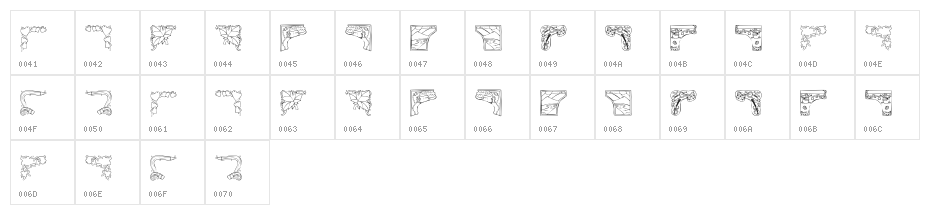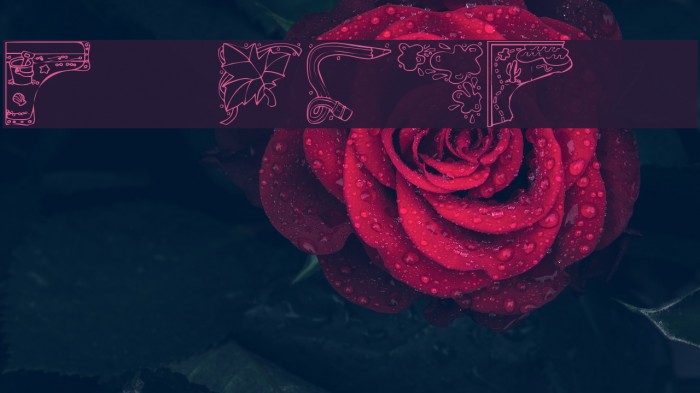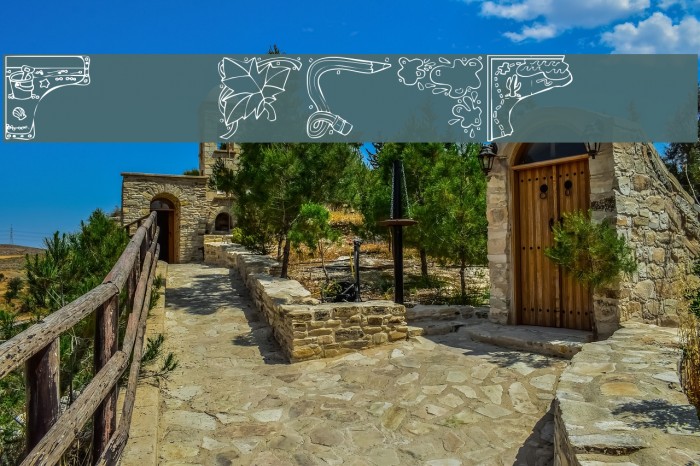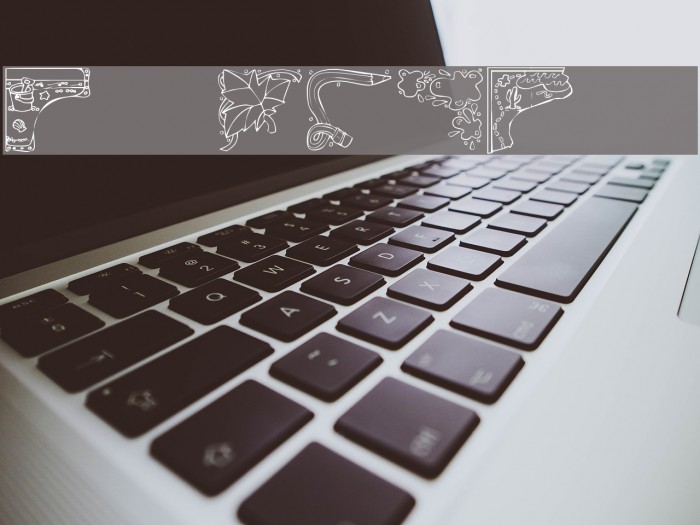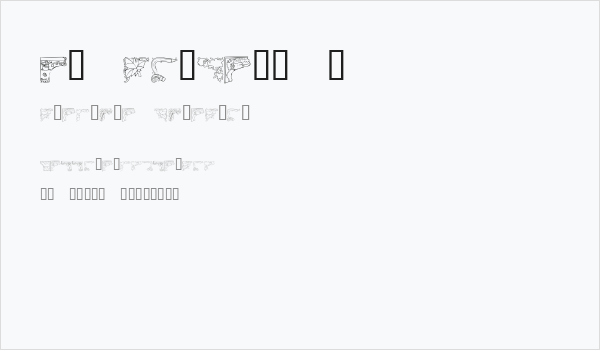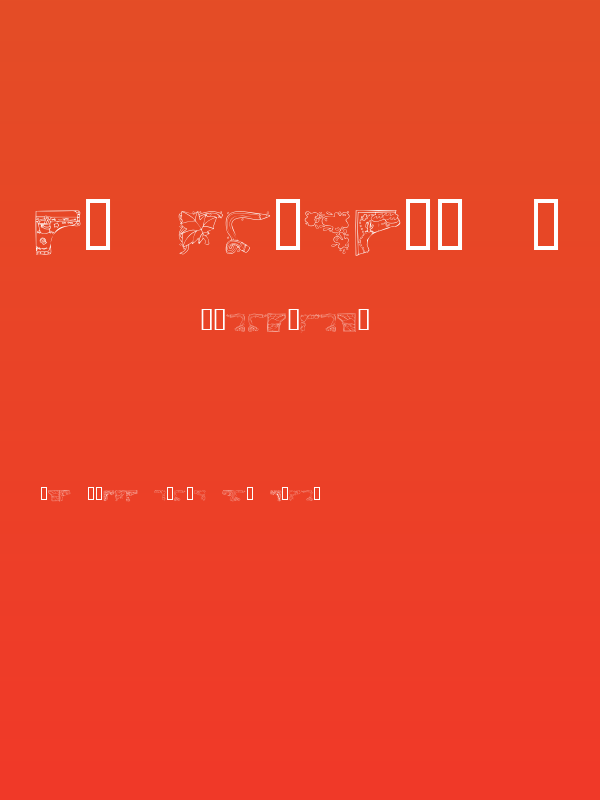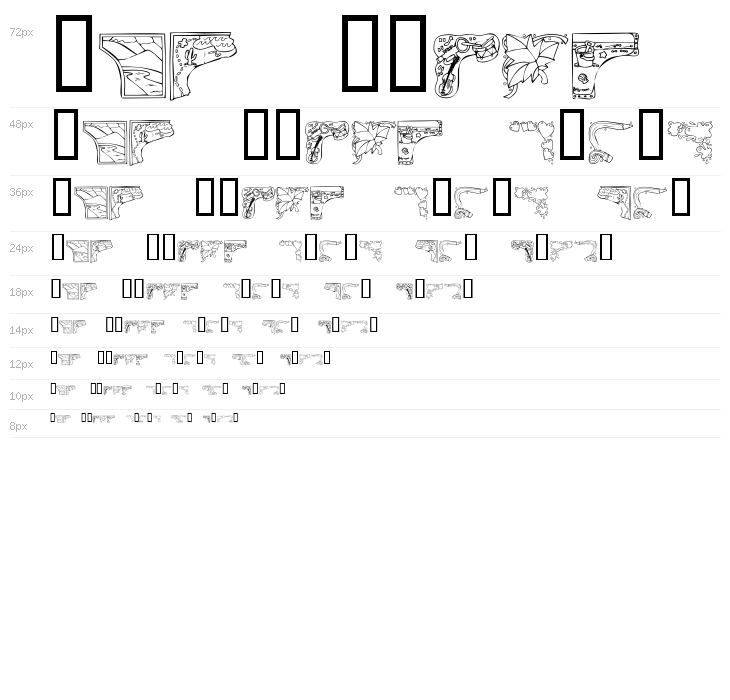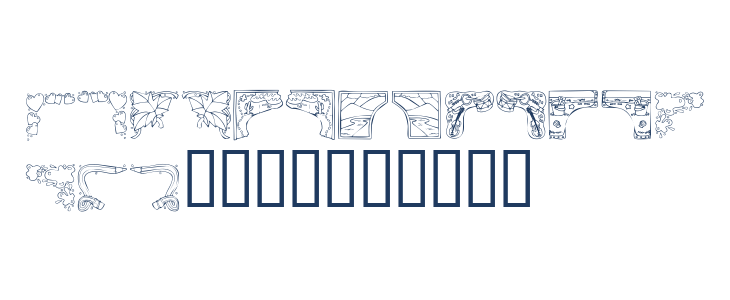
KR Corners 2 Font
KR Corners 2 Description
This design features intricate corner elements that are highly decorative and artistic. Each piece is uniquely crafted with detailed patterns, resembling ornate architectural elements or decorative flourishes. The style is consistent throughout, with a focus on symmetry and elaborate detailing. These elements are not typical alphanumeric characters but rather decorative motifs that could be used to embellish or frame text or images. The design is reminiscent of vintage or classical styles, with a touch of whimsy and creativity.
| Overall Style | Vintage, Decorative |
| Use Case | Decorative elements, Borders |
| Proposed Projects | Ideal for use in decorative borders, invitations, certificates, or any project requiring ornate embellishments. |